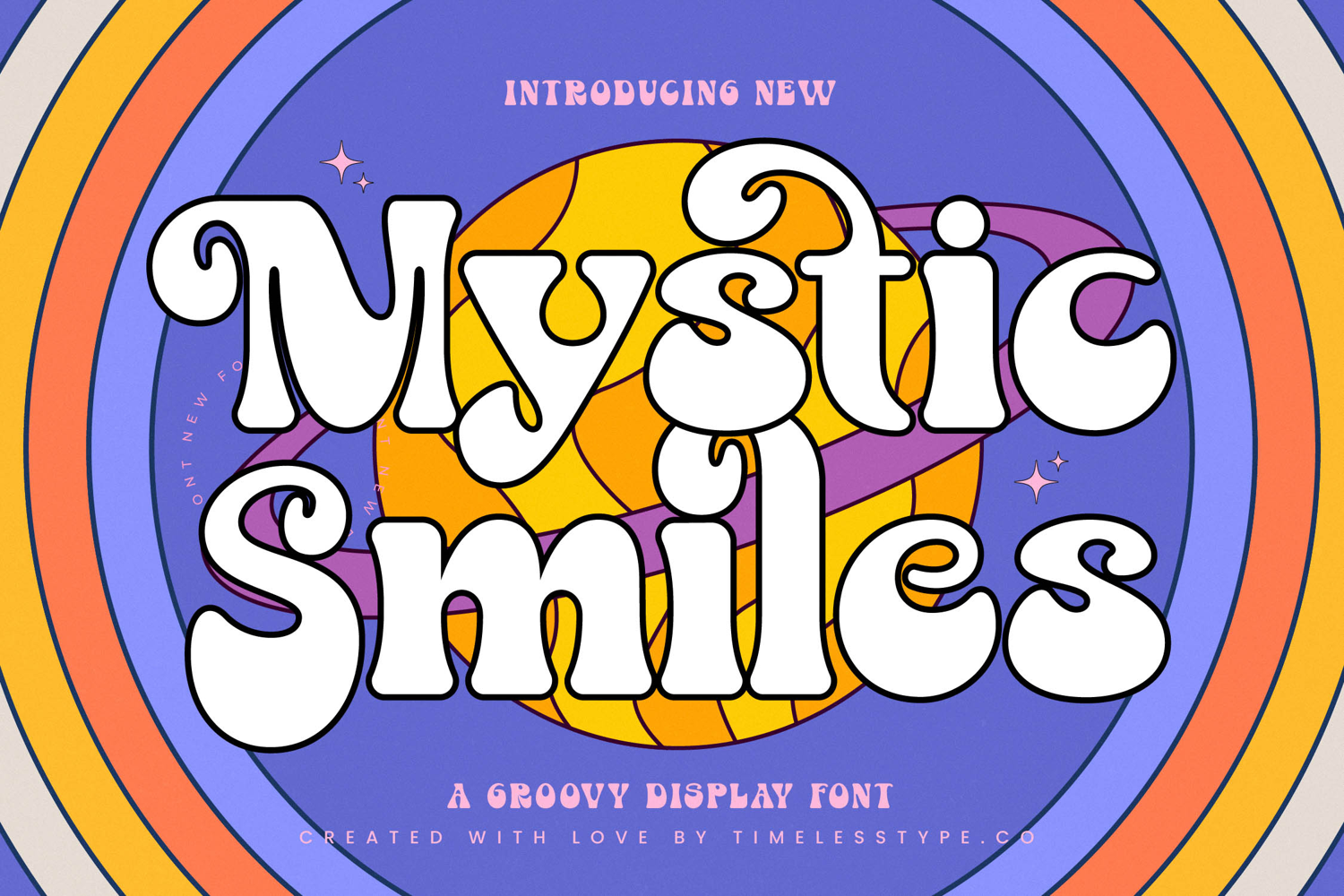
Mystic Smiles - Groovy Display Font
Mystic Smiles is a groovy display font that radiates fun, nostalgia, and retro charm. Its chunky letterforms, rounded curves, and playful details capture the spirit of 60s–70s psychedelia while keeping a modern, trendy appeal for today’s design needs. Bold and expressive, Mystic Smiles is perfect for projects that aim to stand out with personality, creativity, and vibrant energy.
This font excels in headline typography, where its bold curves and funky rhythm instantly grab attention on posters, banners, and album covers. In branding and logo design, Mystic Smiles communicates originality and friendliness, making it ideal for lifestyle brands, creative studios, cafes, and retro-inspired businesses. Its playful character also shines in packaging design, particularly for food, beverages, and artisanal goods, where typography is a key element of storytelling.
Mystic Smiles thrives in advertising campaigns, event promotions, and festival posters, where its groovy vibe enhances visual impact. For social media graphics and digital content, the font ensures eye-catching appeal while keeping a cheerful, approachable tone.
Its versatility extends into editorial layouts, merchandise, and lifestyle projects, where retro-inspired aesthetics meet modern design. With multilingual support, Mystic Smiles adapts seamlessly across global markets, making it a versatile choice for international creatives.
Ultimately, Mystic Smiles is more than just a display font—it is a design companion for bold, groovy, and joyful storytelling. Whether used for headlines, branding, packaging, advertising, or editorial design, it guarantees projects full of character, style, and unforgettable retro flair.